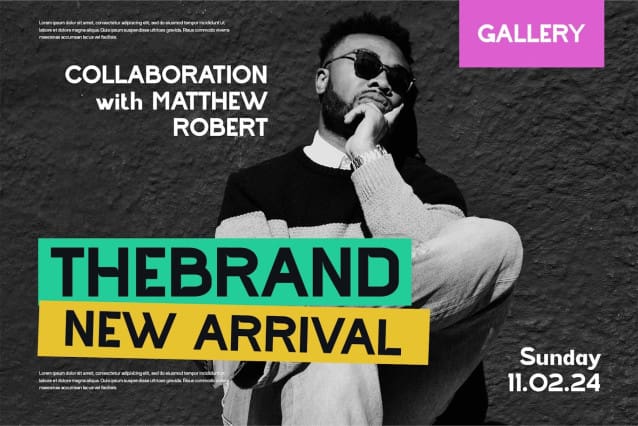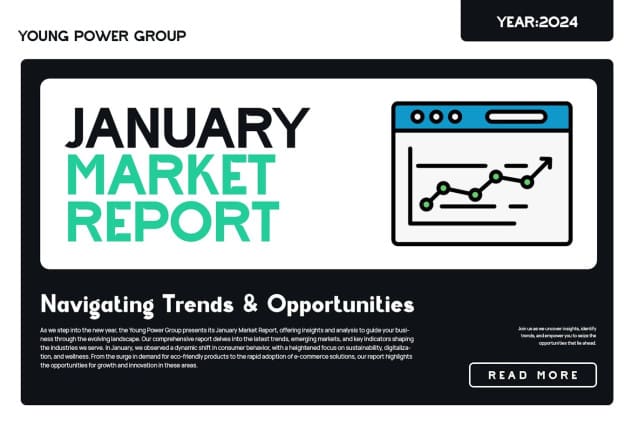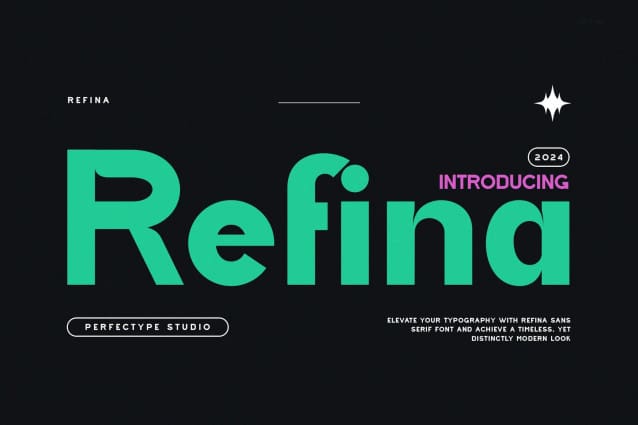
Refina Font
Refina Font – This typeface embodies a symmetrical and balanced rhythm through a unique blend of different sources of inspiration. Proportions are precisely adjusted with subtle contours and subtle contrasts. These shapes give the font an attractive look without compromising elegance and minimalism, ensuring that any glyph is suitable for all graphic design purposes such as brochures, videos, advertising branding, logos, magazines , layouts, posters, post templates, games and others